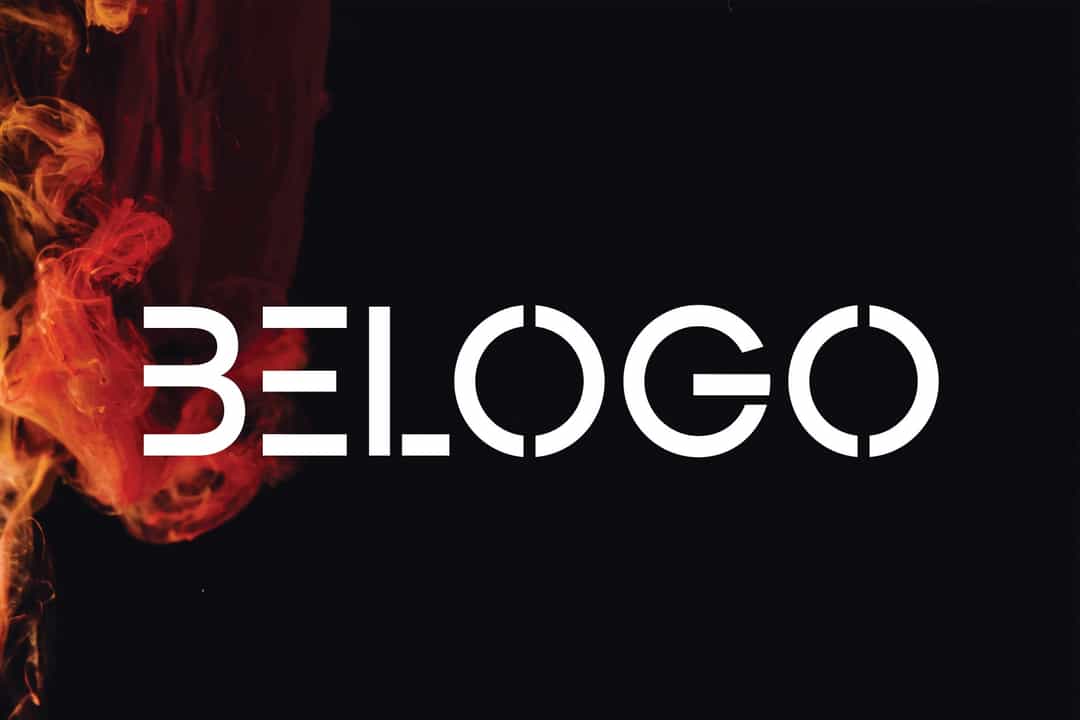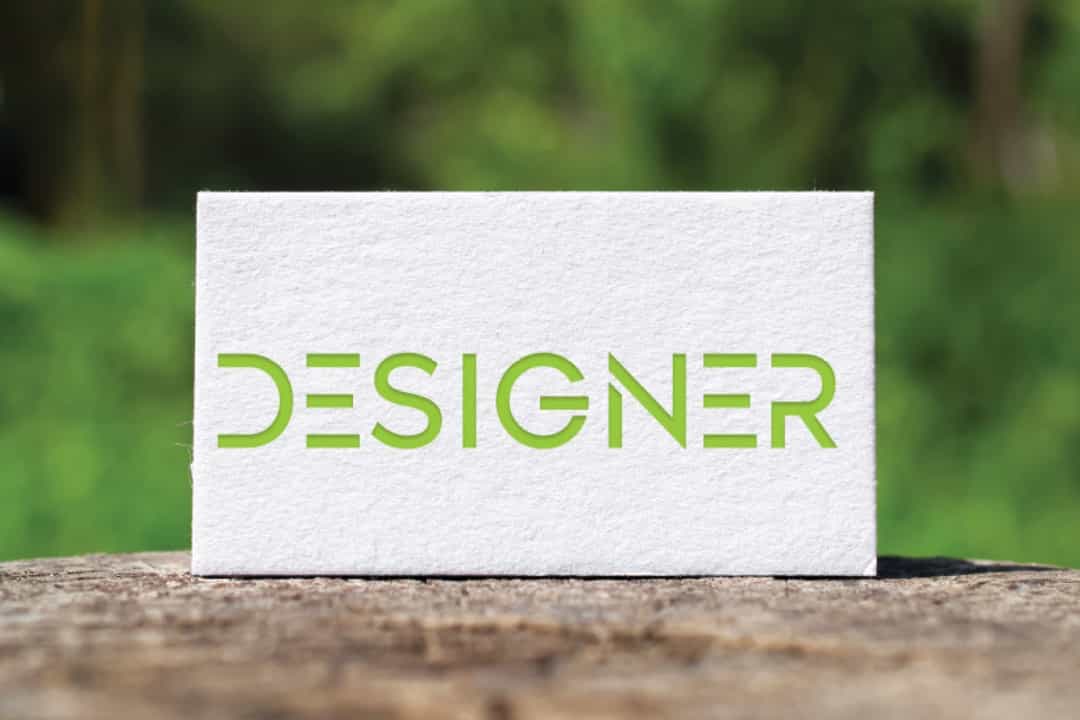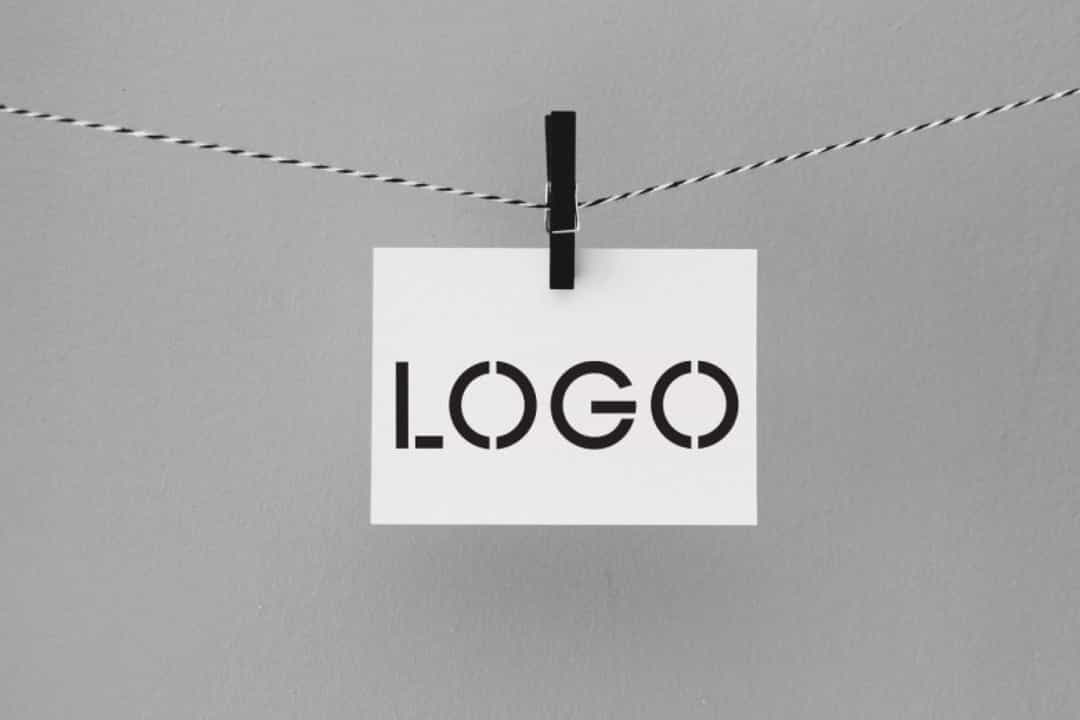
BELOGO Display provides the consumer with a variety of products that are somehow different from the rest and creative. Fashion letters are ideal to use for wedding invitations, social media posts, logos of advertisements, packages of products, watermark for photos, invitations, stationery and many more.